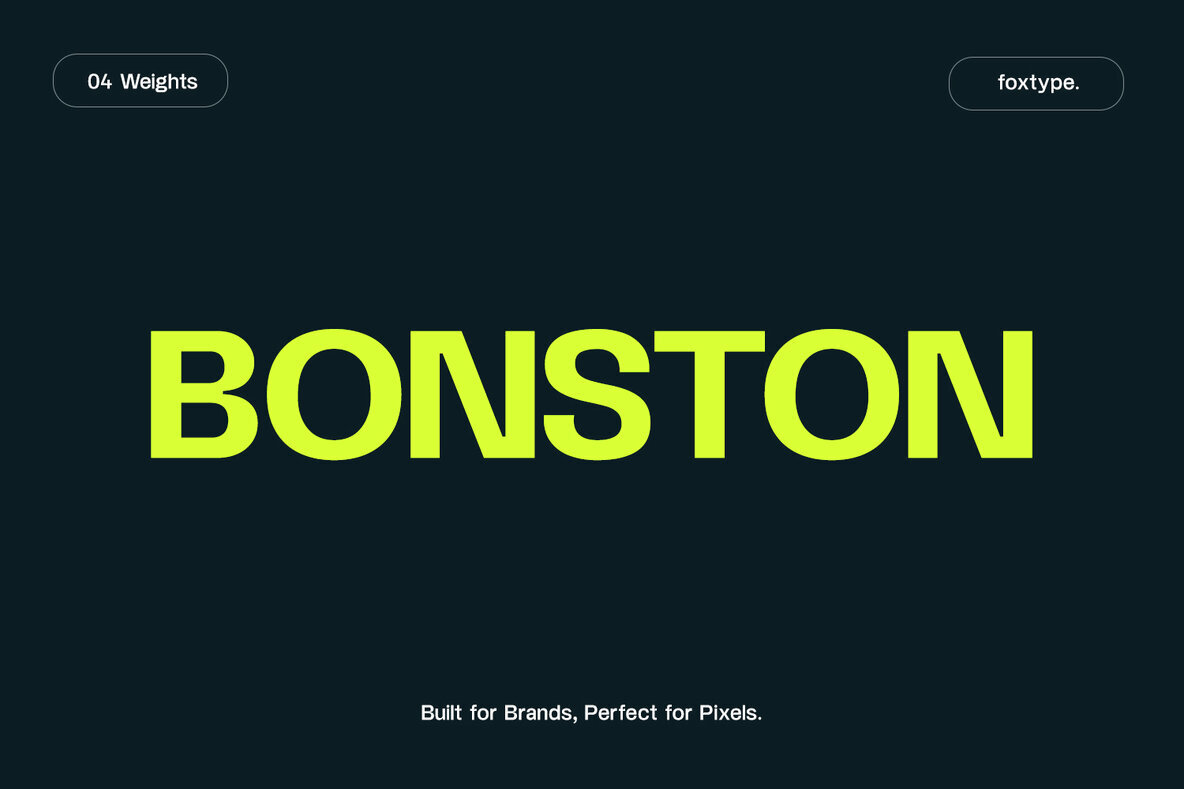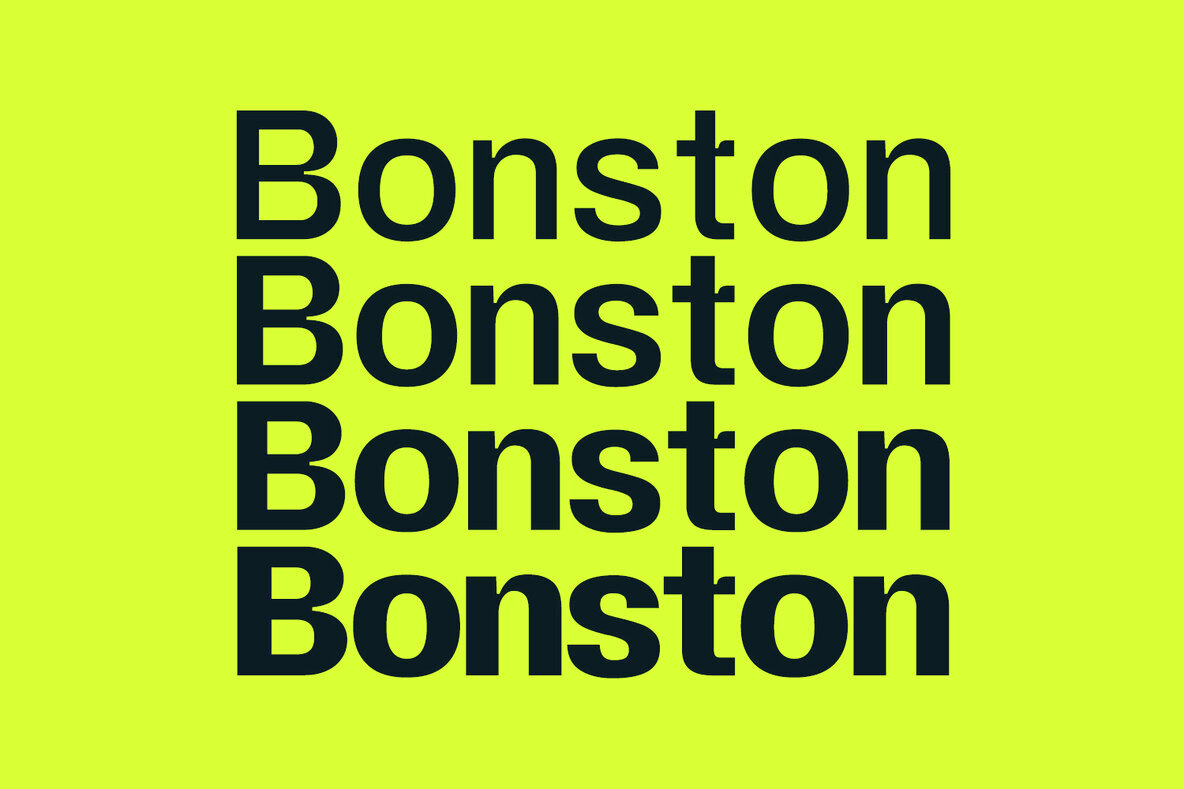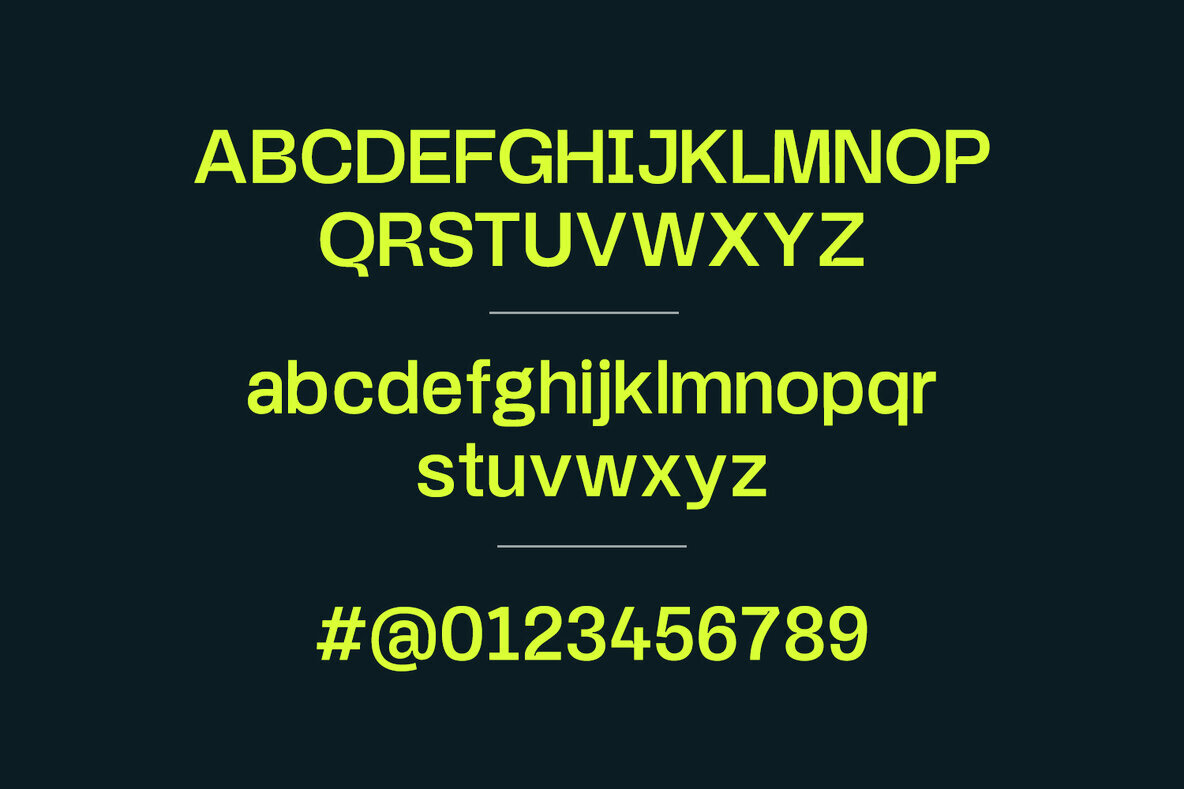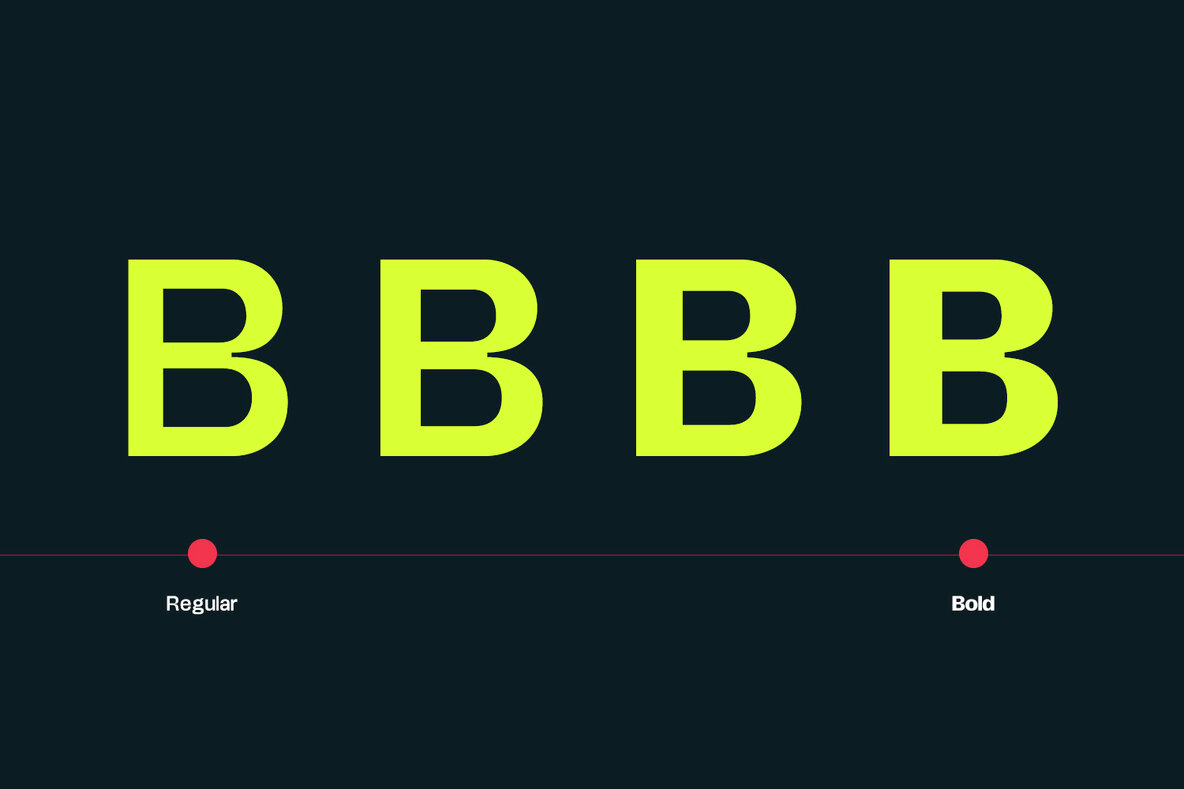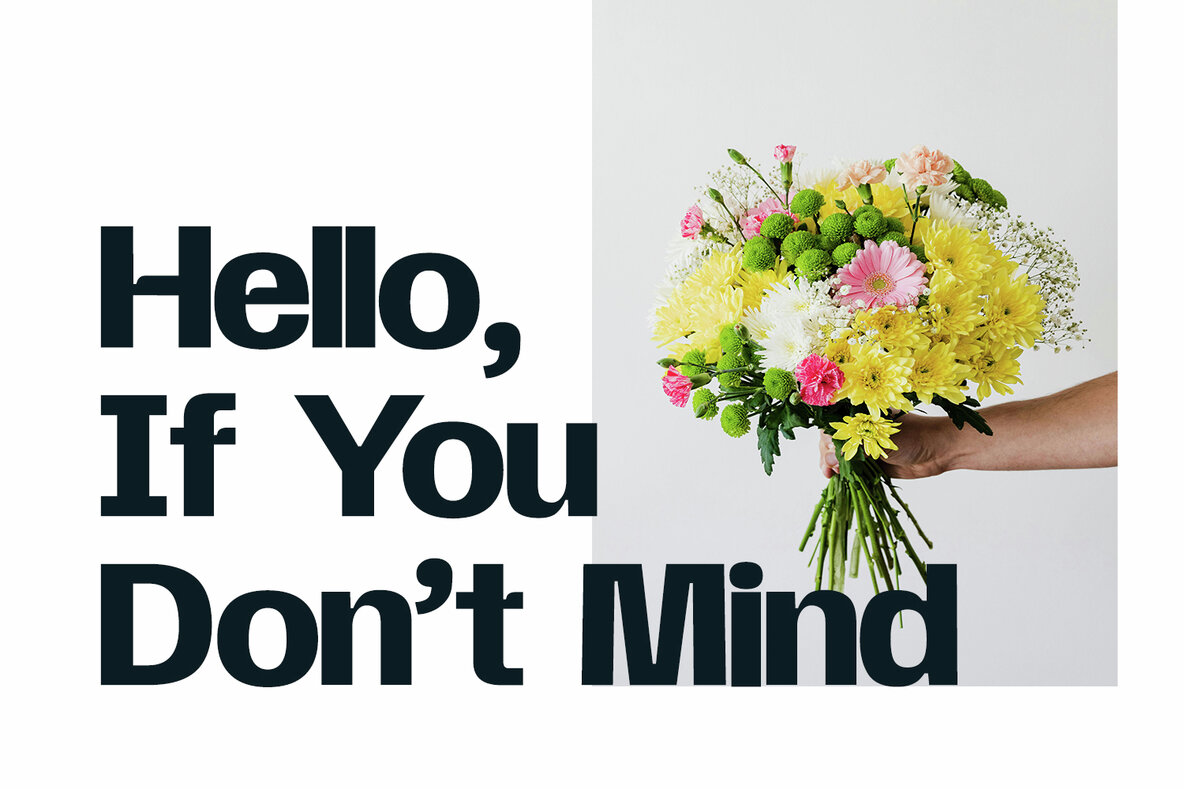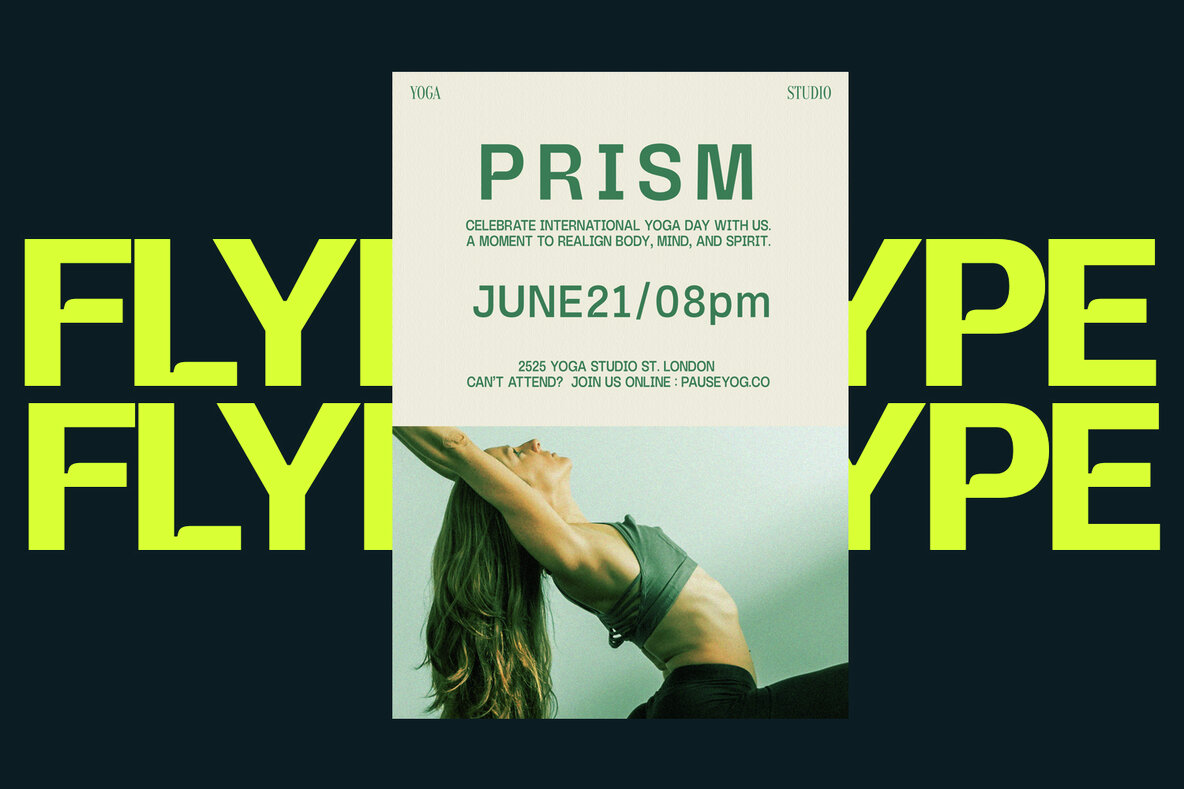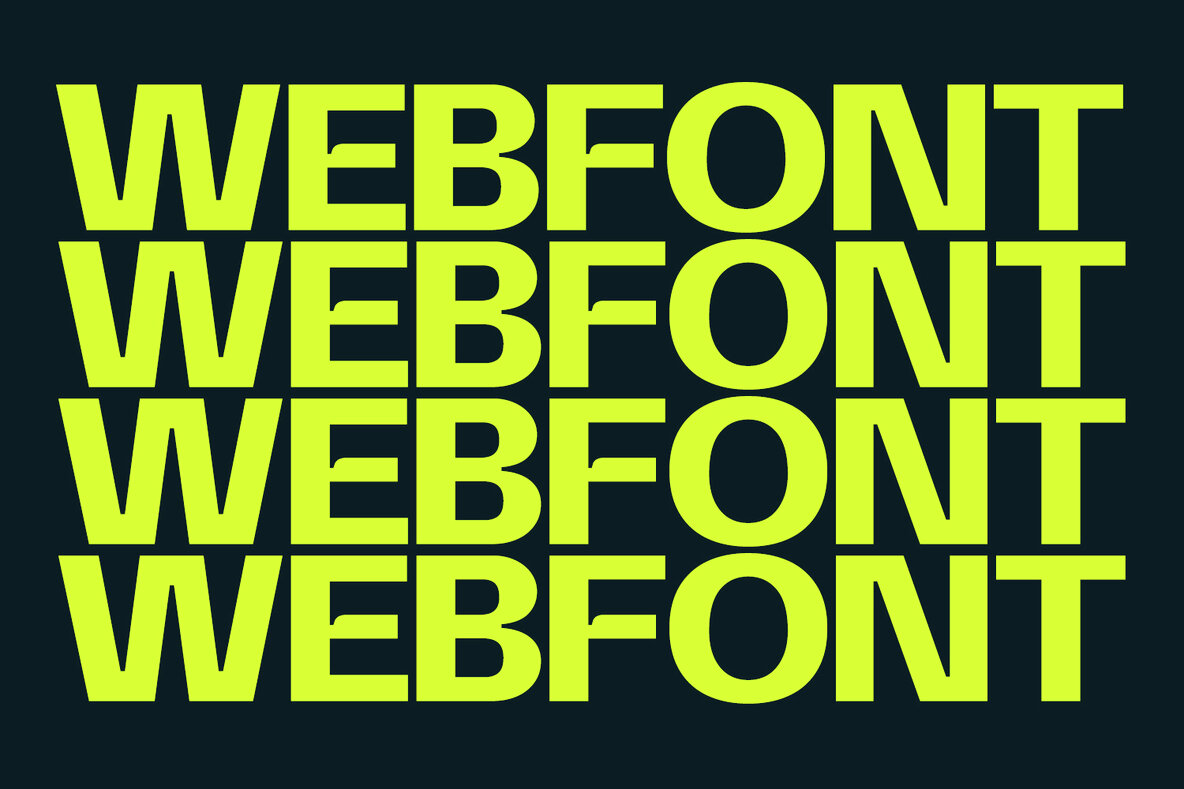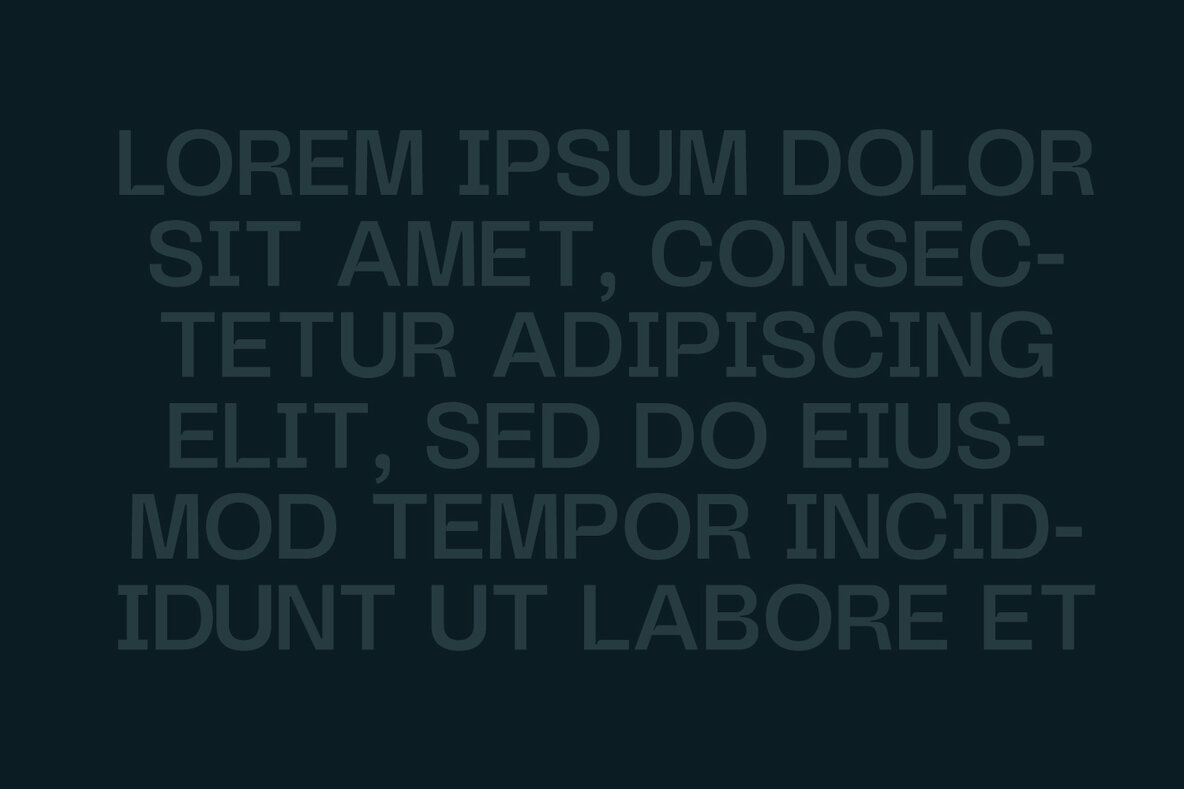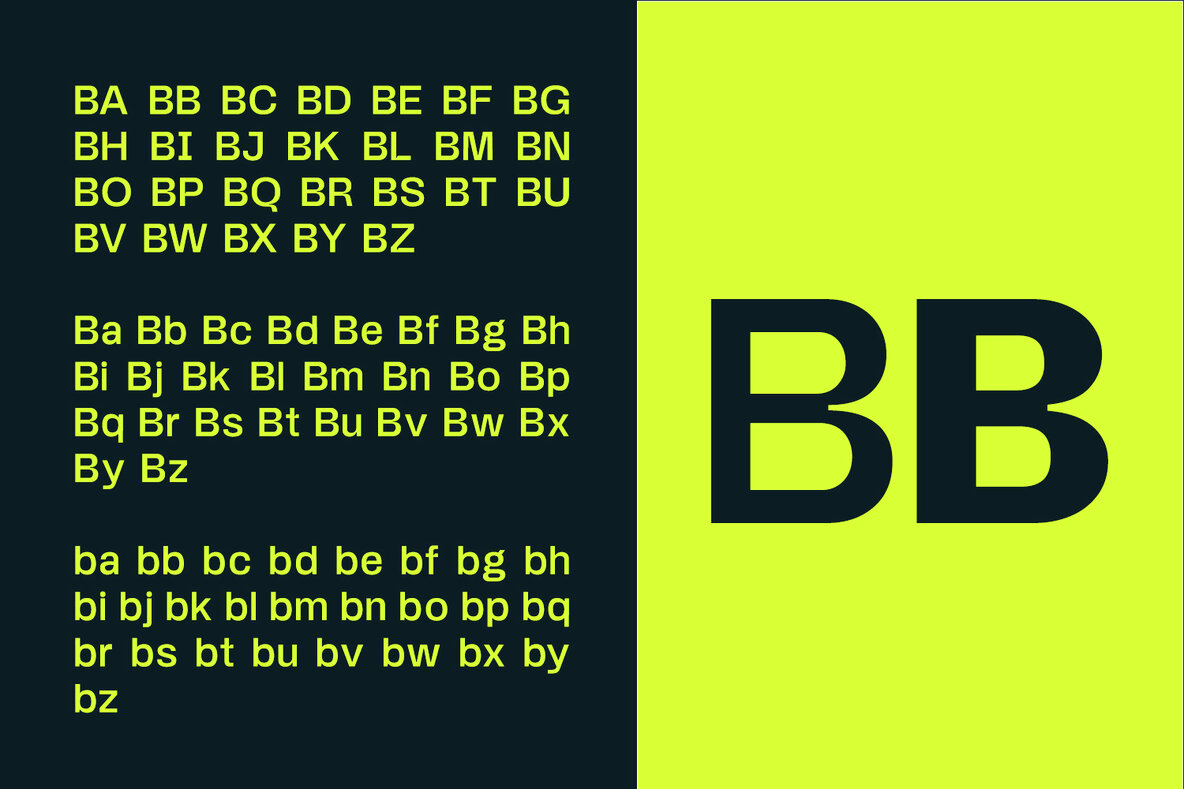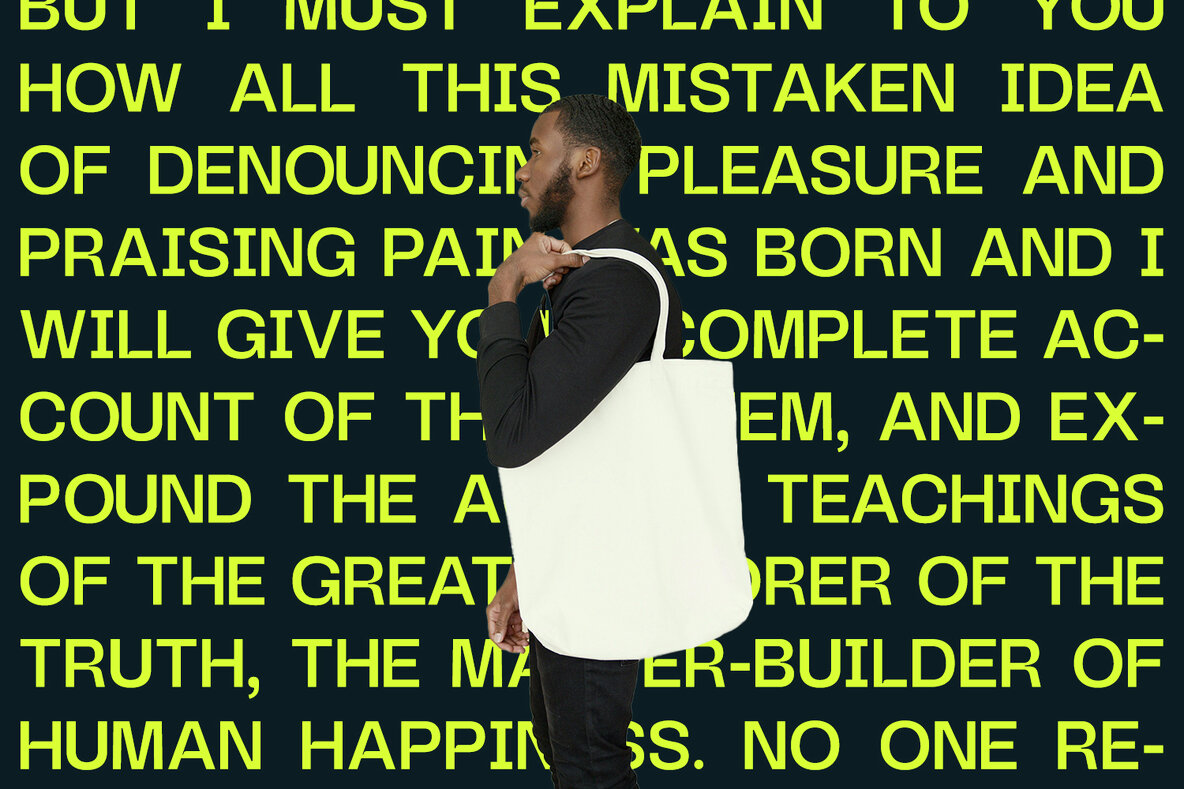
Bonston Font
Bonston Display Regular
Bonston Display Medium
Bonston Display SemiBold
Bonston Display Bold
Bonston Display is a contemporary typeface crafted for significant visual impact. It is perfect for web projects, branding, posters, headlines, and magazine covers, infusing clarity and character into every design. With its distinct lines and robust presence, Bonston is an impeccable choice for designers and marketers seeking a striking visual solution. This font offers 4 essential weights—Regular, Medium, SemiBold, and Bold—providing flexibility to suit various project needs. Whether you are developing a dynamic website UI, establishing a compelling brand identity, or creating eye-catching print materials, Bonston Display delivers readability and style. Assert your message with Bonston Display: bold enough to make a statement, yet refined enough to remain timeless.Bonston Display: A Typeface for Bold Statements